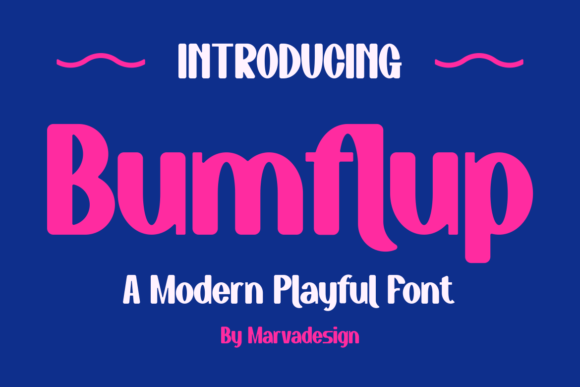
Behold, Bumflup Font, the epitome of boldness and authenticity, awaits your creative exploration! This remarkable display font, crafted by the ingenious minds at Marvadesign, is a typographic masterpiece that will elevate your designs to new heights. With its captivating presence, Bumflup is the perfect font for fashioning logos that exude strength and character, transforming your brand into an unforgettable icon.
Unleash your creativity and let Bumflup ignite a revolution in your t-shirt designs. Its bold strokes and distinct personality will make your messages stand out, leaving an indelible mark on the hearts of your audience. Let your imagination soar and transform ordinary garments into wearable works of art, sparking conversations and turning heads wherever you go.
The versatility of Bumflup extends beyond logos and t-shirts. Its innate charm lends itself seamlessly to an array of branding projects, from eye-catching product labels that demand attention to captivating posters that ignite imaginations. With Bumflup as your font of choice, your products and promotions will radiate an aura of distinction, attracting customers and leaving a lasting impression.
Bumflup's strength lies in its ability to shine in a multitude of contexts. Its adaptability makes it an ideal font for crafting stunning invitations that set the tone for unforgettable events, or for designing business cards that exude professionalism and leave a lasting impression. Whether you're creating marketing materials, social media posts, or website designs, Bumflup will elevate your creations, adding a touch of sophistication and originality that captivates your audience.
Take the plunge and embrace Bumflup Font, the font that will revolutionize your design journey. Its boldness and authenticity will empower you to create designs that resonate with your audience, leaving them spellbound and eager for more. Transform your creative vision into reality with Bumflup, the font that ignites passion, propels your brand to new heights, and leaves an enduring legacy of design excellence.